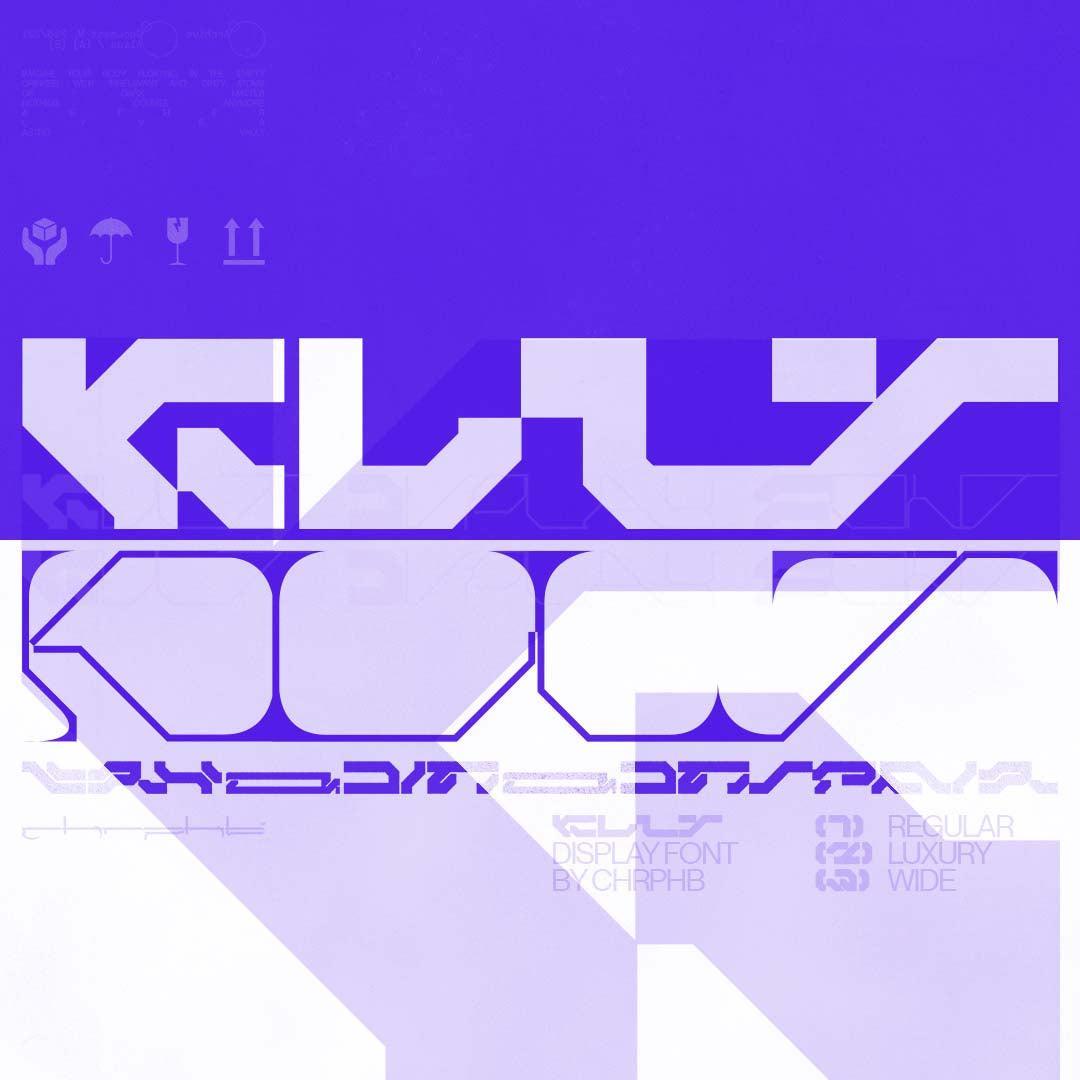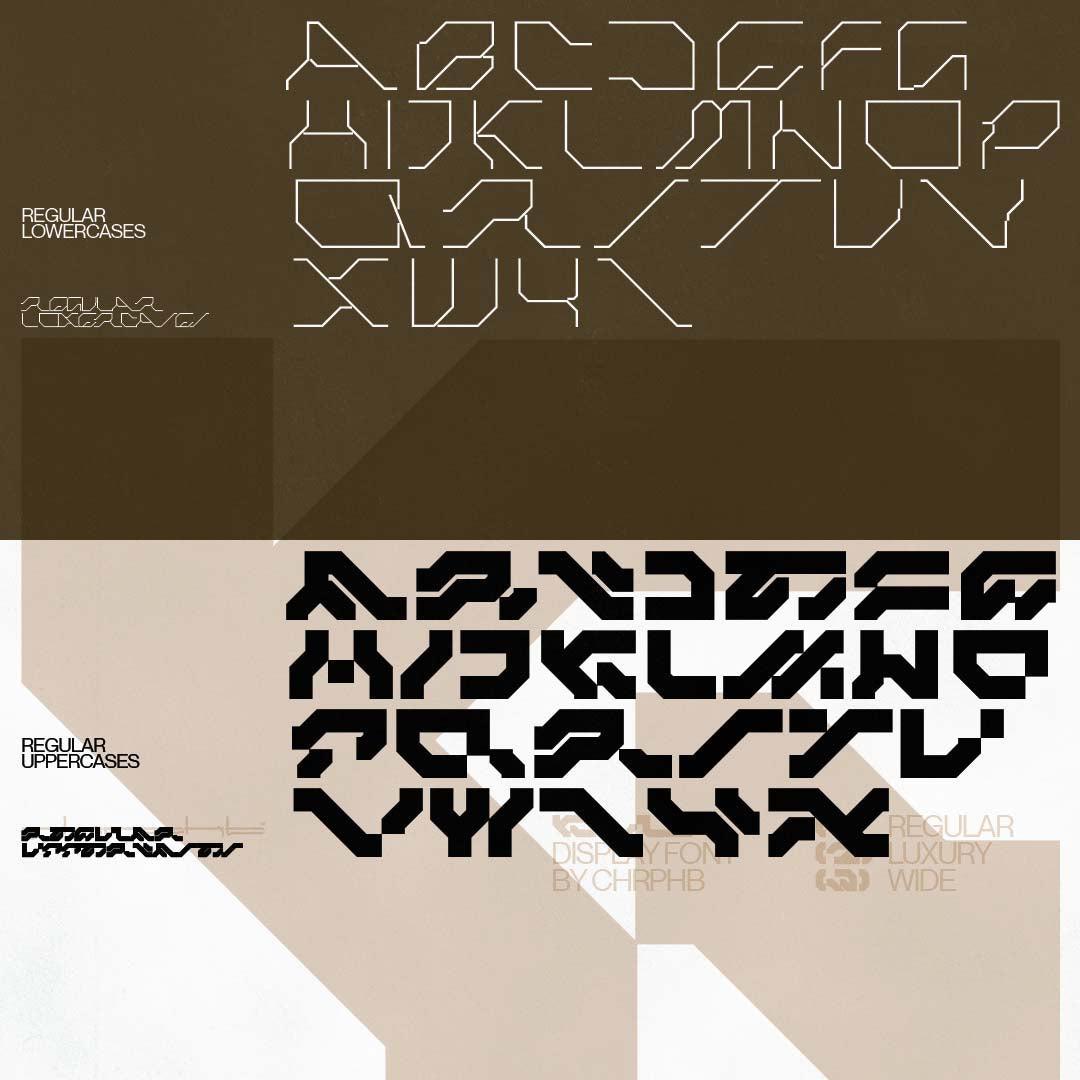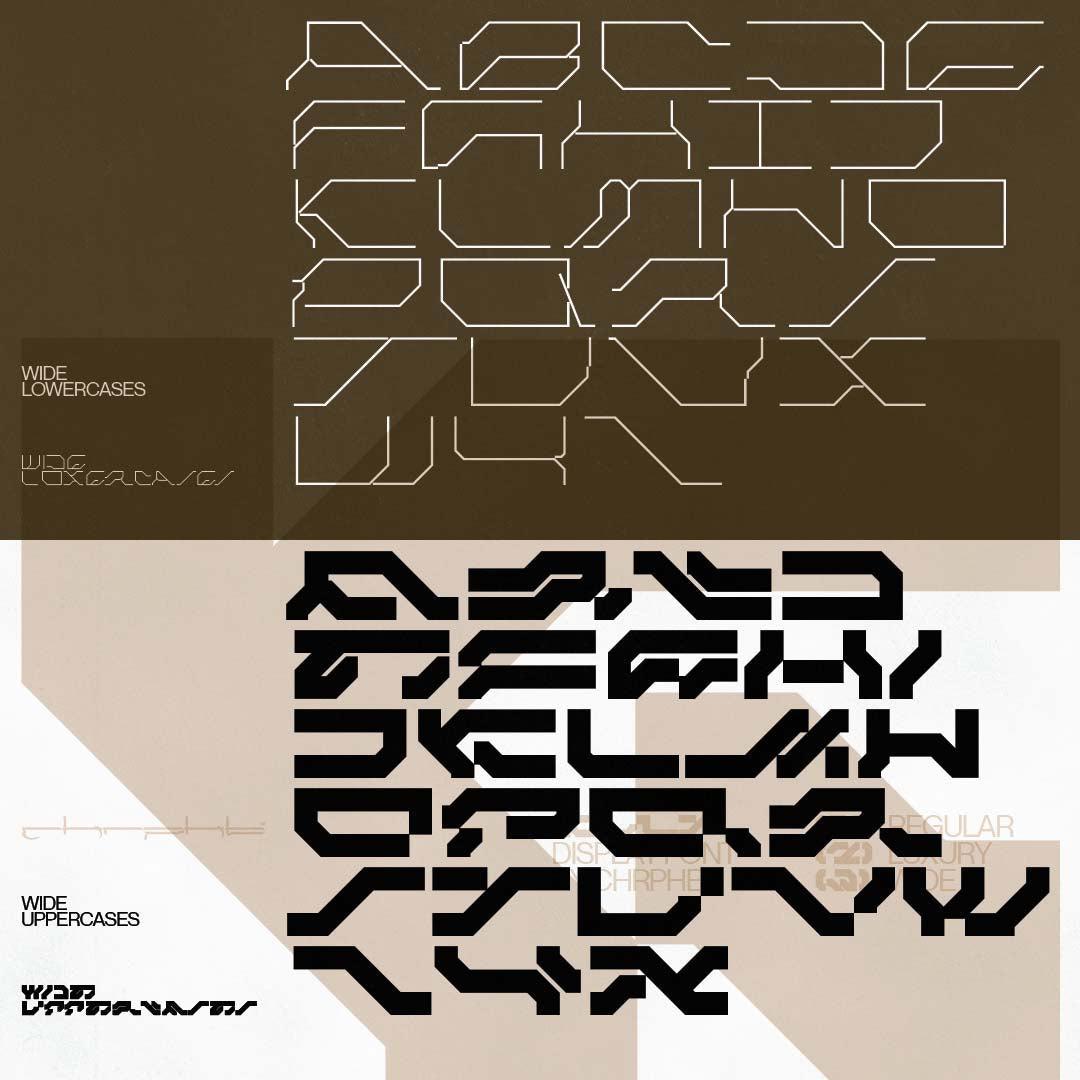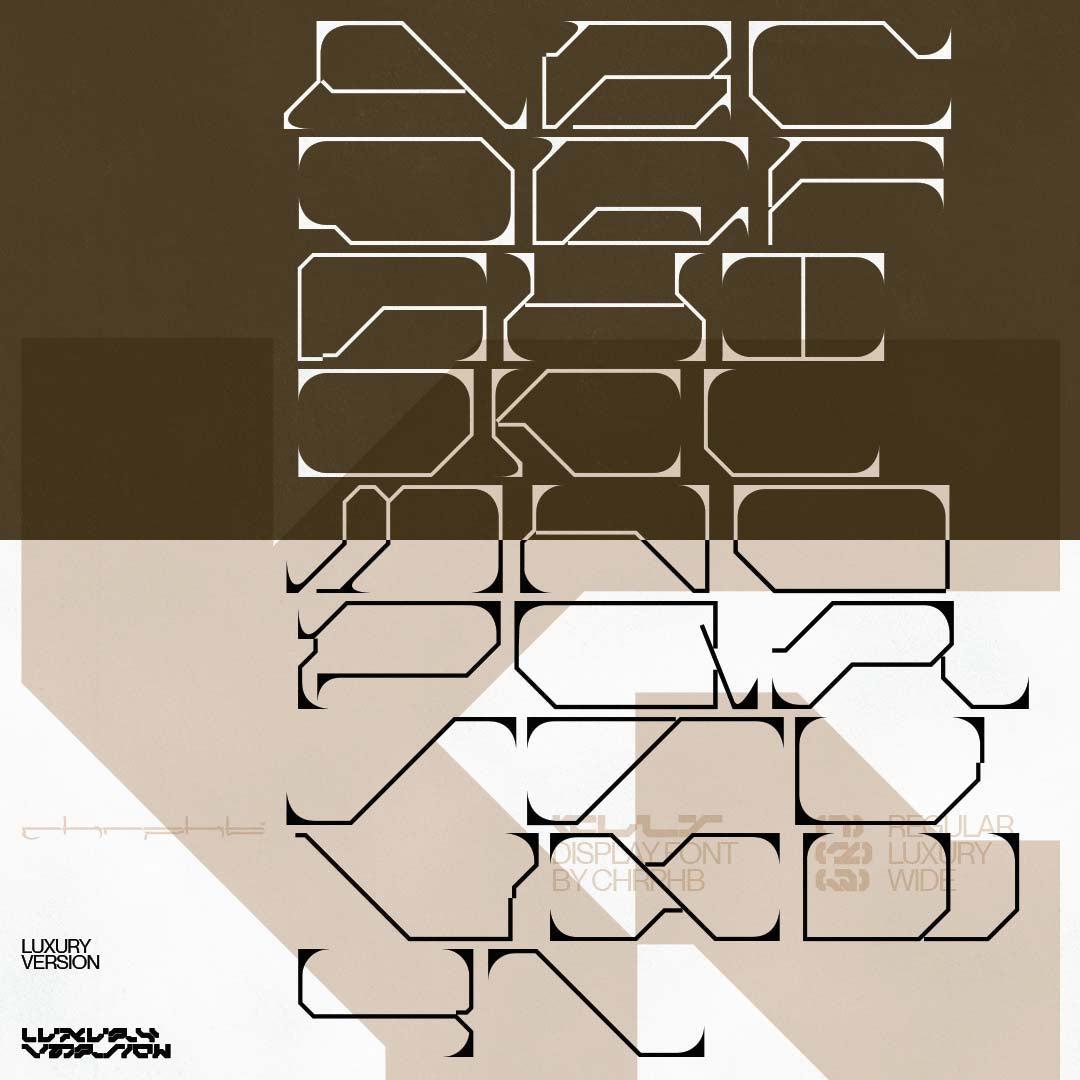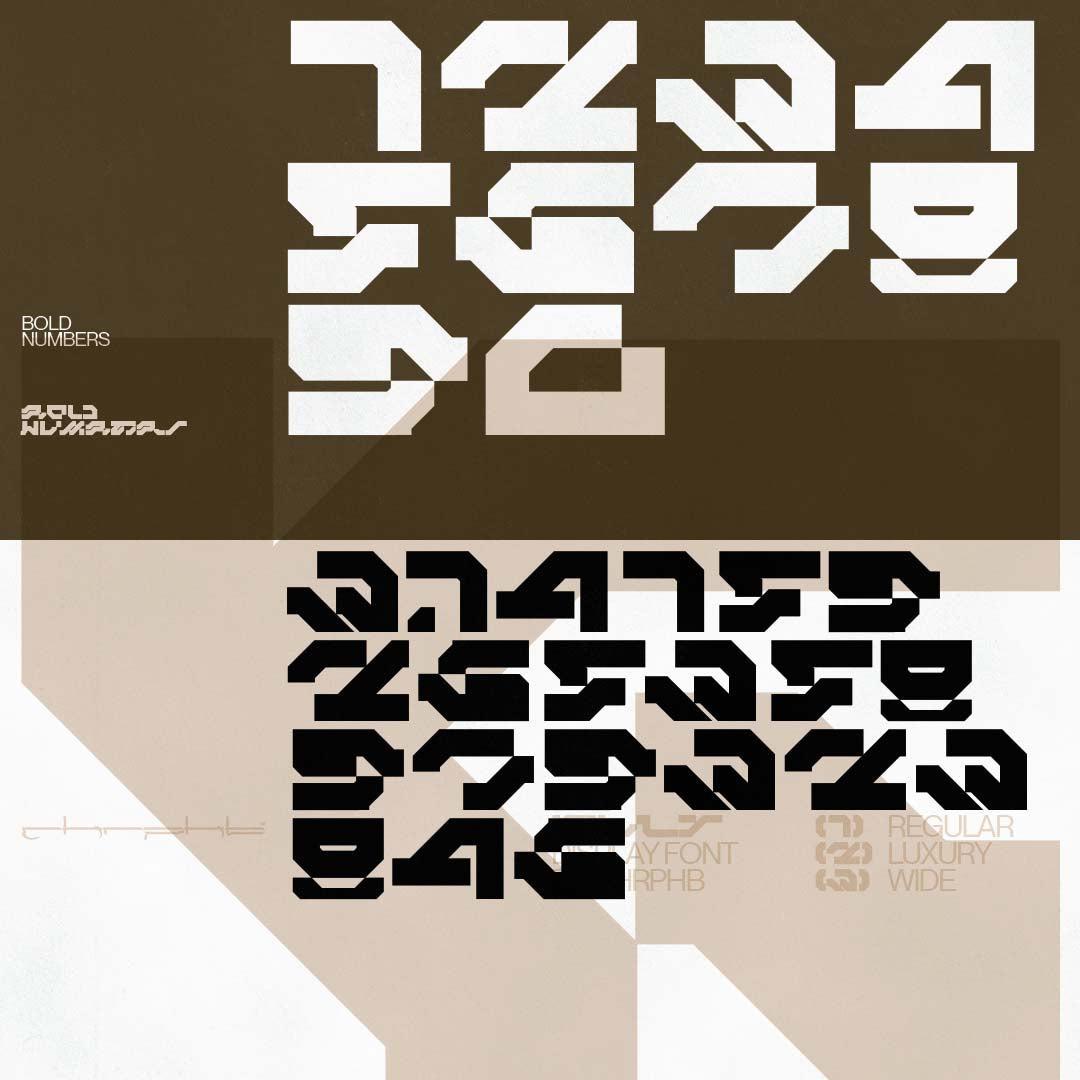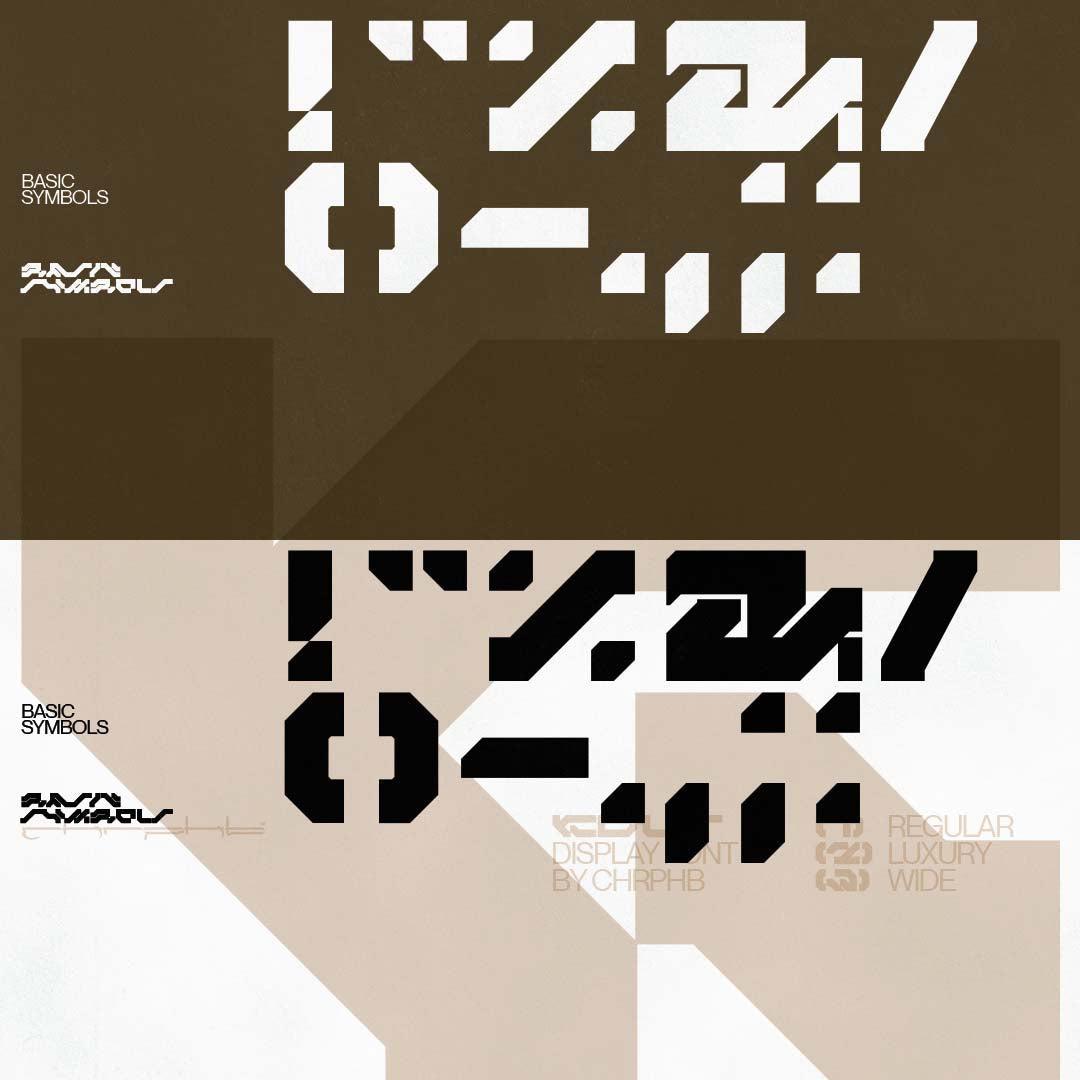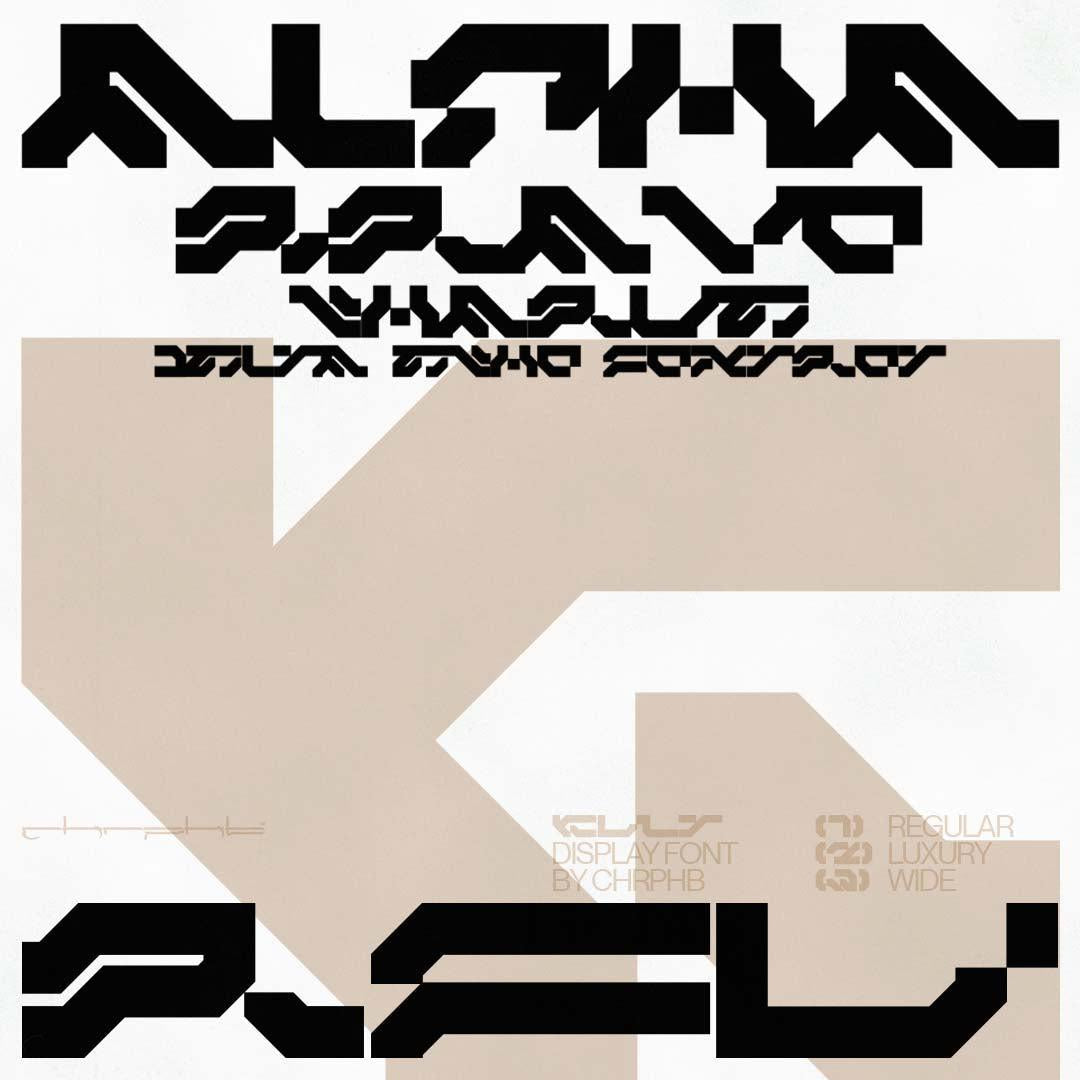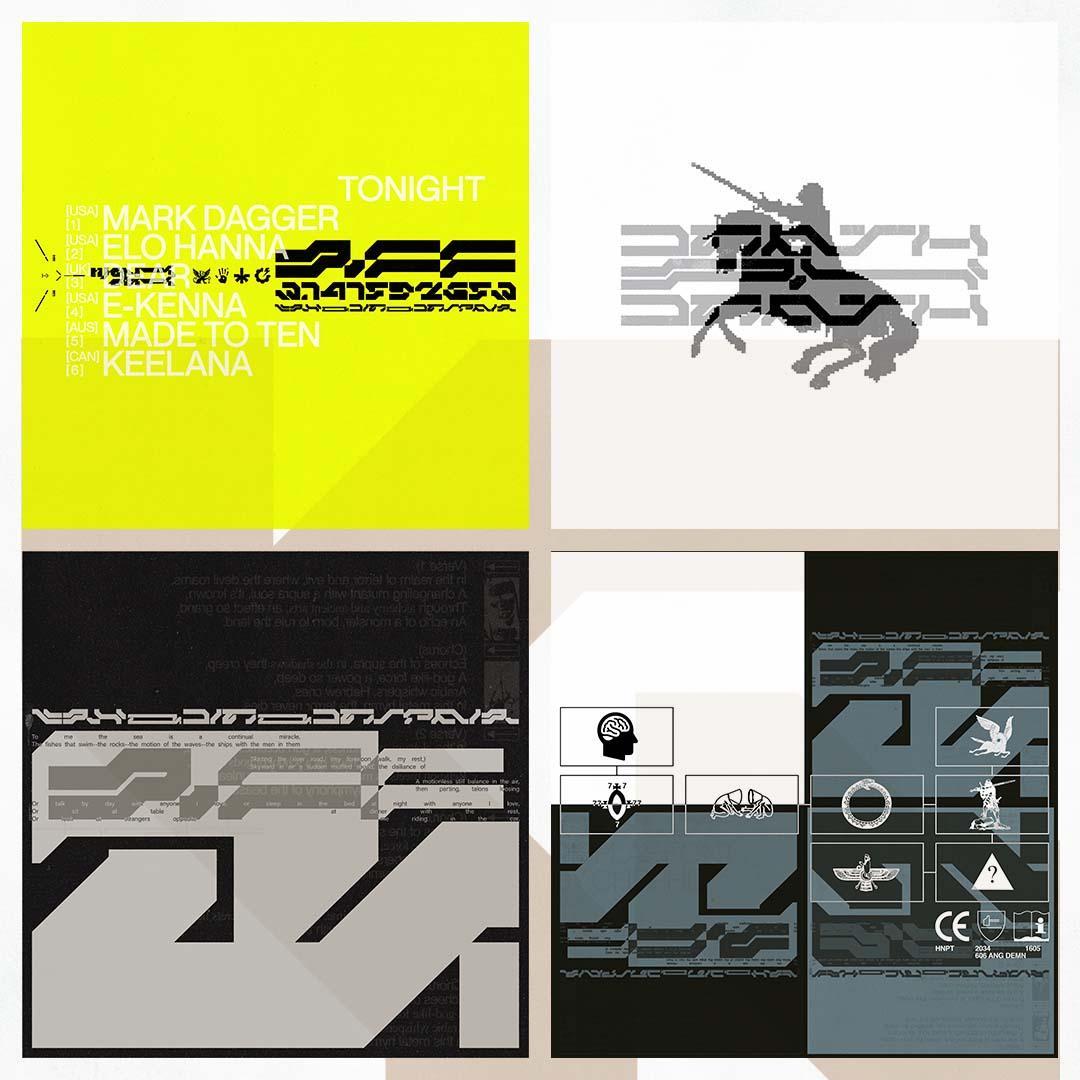
Kult Typeface
Kult, a bold typeface with Regular, Wide, and Luxury styles, fits cyber, techwear, and modern branding. Sharp, versatile, and forward-thinking.
Kult Typeface is a bold font available in Regular, Wide, and Luxury styles, designed for modern branding with a focus on cyber and techwear aesthetics. It features sharp and versatile characteristics suitable for contemporary design needs.